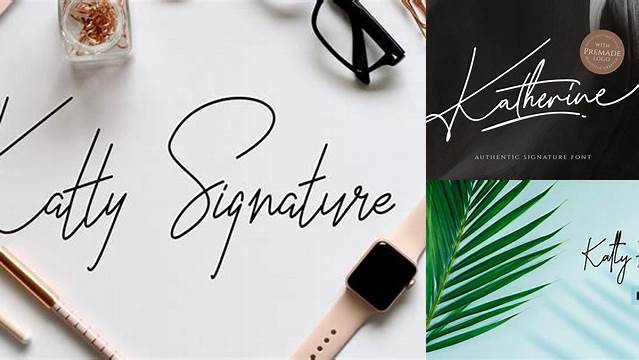
Katty Signature Font: Free Download & Design Guide
Hey everyone! Today, we're diving headfirst into the world of fonts, and specifically, the Katty Signature Regular Font. This font is super popular for a reason – it's got that perfect blend of elegance and readability, making it a go-to choice for a ton of design projects. If you're looking for a way to spice up your branding, create stunning social media posts, or just add a touch of flair to your personal projects, then you're in the right place. We're going to cover everything from how to snag a free download of the Katty Signature Regular Font to how to use it effectively in your designs. So, buckle up, grab your favorite beverage, and let's get started! We'll explore its origins, its strengths, and how you can use it to create designs that really pop. Whether you're a seasoned designer or just starting out, this guide is designed to help you make the most of this fantastic font. Ready to unleash your creativity? Let's go!
Katty Signature Font: Unveiling Its Charm and Features
Alright, let's get to know the star of the show: the Katty Signature Regular Font. This isn't just any font; it's a carefully crafted typeface designed to mimic the fluidity and grace of a handwritten signature. Its distinctive character is what sets it apart. It has a beautiful flow with subtle variations in stroke thickness that give it a truly authentic and personal feel. Think of it as the digital equivalent of a perfectly penned signature, bringing a touch of sophistication to any project. This font typically includes a full set of characters, including uppercase and lowercase letters, numbers, and a variety of special characters, making it versatile enough for most design needs. Its elegant curves and balanced proportions contribute to its overall readability, ensuring that your message is both stylish and easy to understand. It's incredibly adaptable, working well in everything from logos and branding materials to invitations, social media graphics, and website headers. The beauty of the Katty Signature Regular Font lies in its ability to convey a sense of personality and trustworthiness. It subtly communicates that something is genuine, a message that resonates with audiences looking for authenticity. Its design strikes a balance between being formal enough for professional use and informal enough to feel approachable. This balance makes it a perfect choice for a wide range of applications. And because it looks so good, it's easy to see why it’s such a popular choice among designers and creatives alike.
For many, the ease of integrating this font into design projects is a significant advantage. With its smooth lines and organic feel, it enhances visual appeal, making it an ideal choice to make your design stand out. Whether you're looking to create a unique logo for your business, design an eye-catching header for your website, or add a personal touch to your invitations, the Katty Signature Regular Font can help you achieve the desired result. Beyond its aesthetics, the Katty Signature Regular Font is also known for its readability. It’s designed to be easily legible, even in smaller sizes, ensuring your message is clear. This is crucial for the success of any design project. In essence, this font is more than just a font; it's a design tool that can transform any project, adding a touch of elegance and personal style. It's a testament to how a well-designed font can enhance communication and bring creative visions to life.